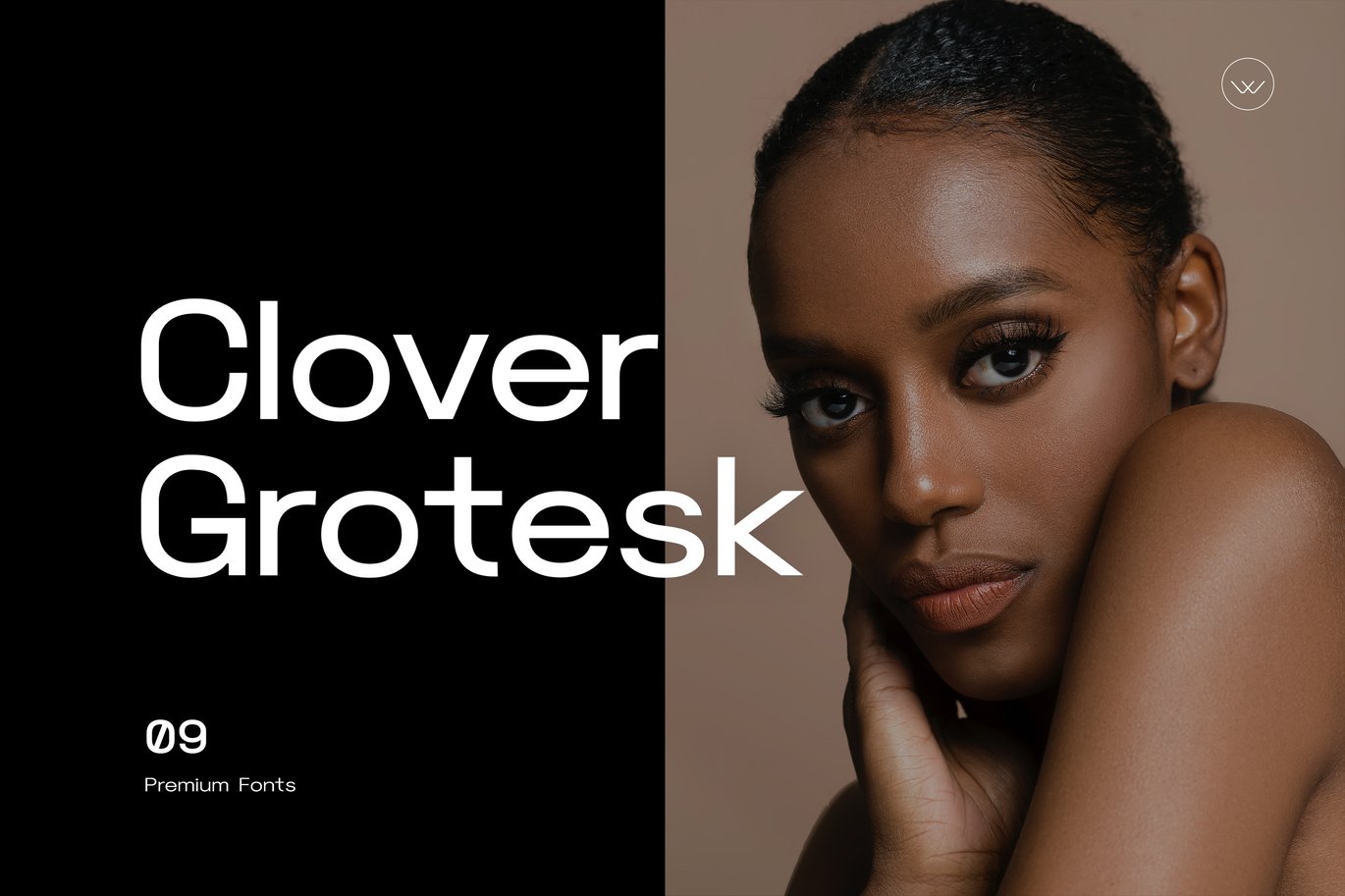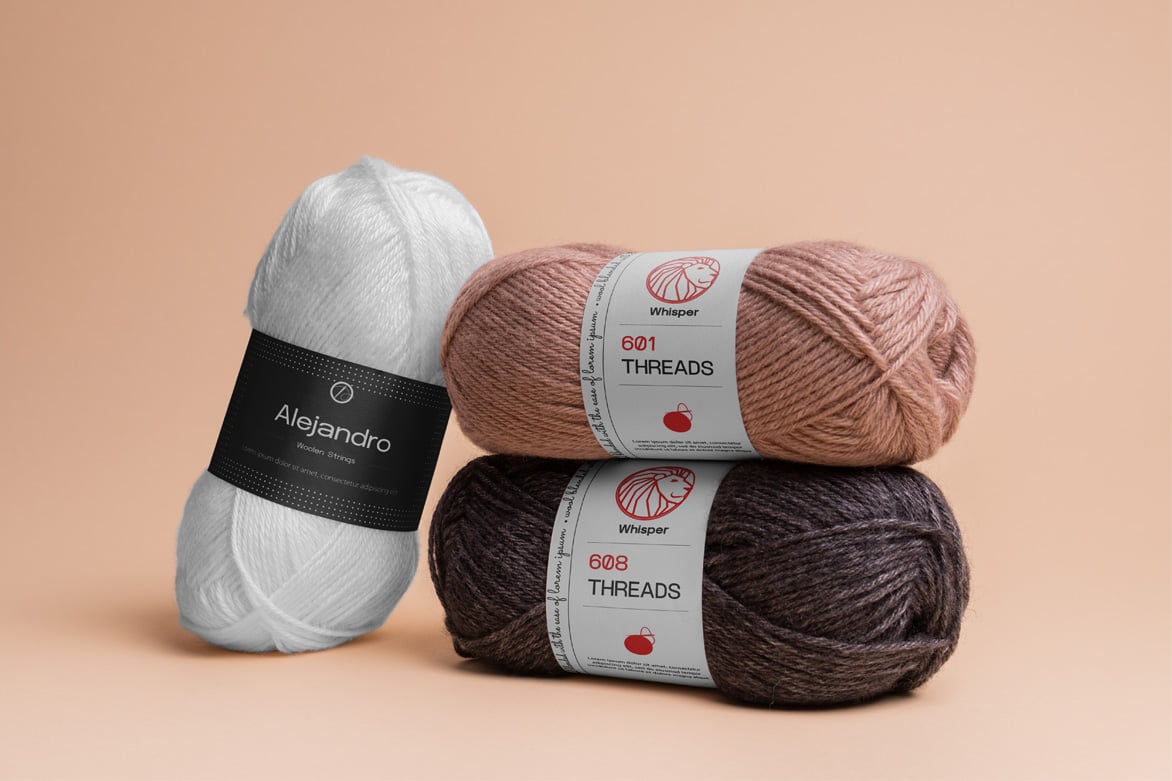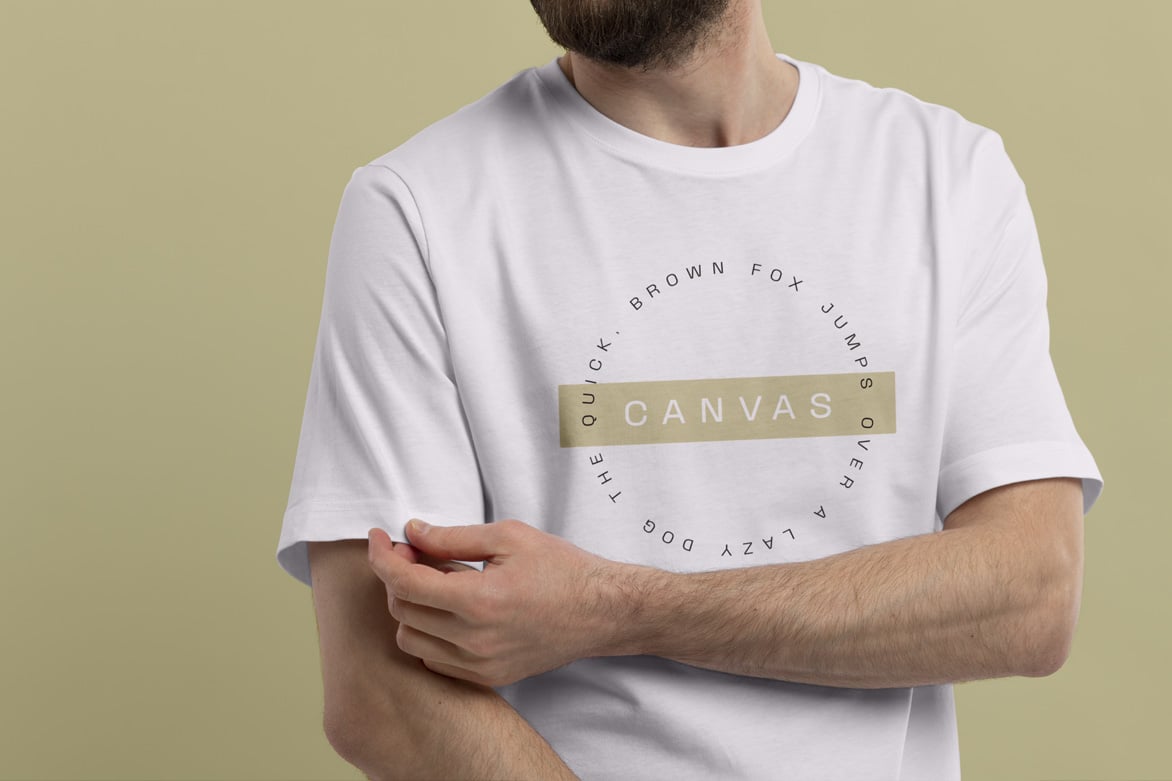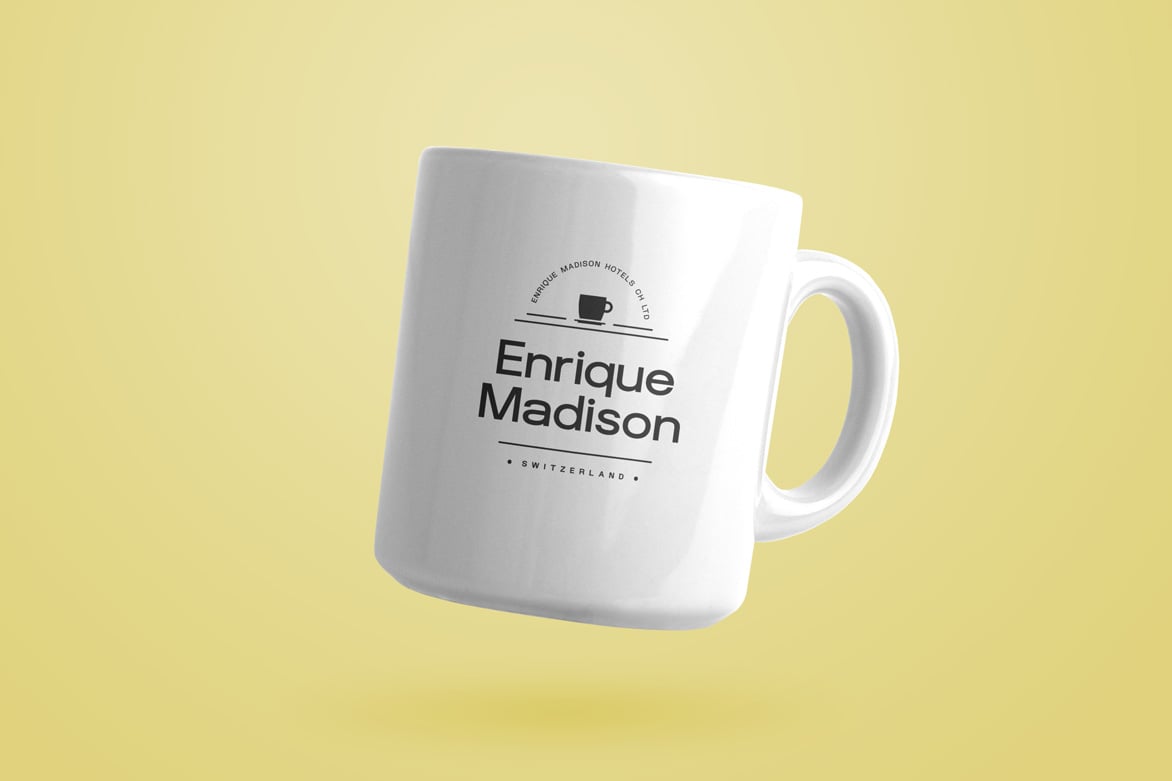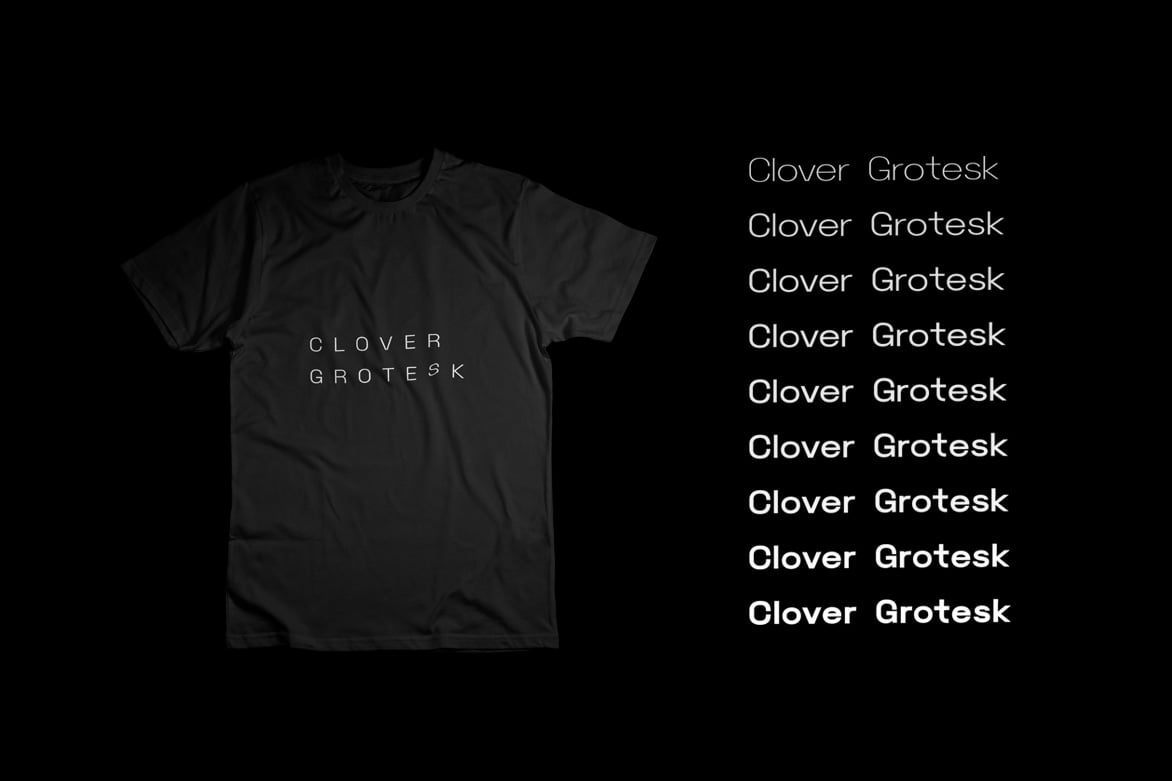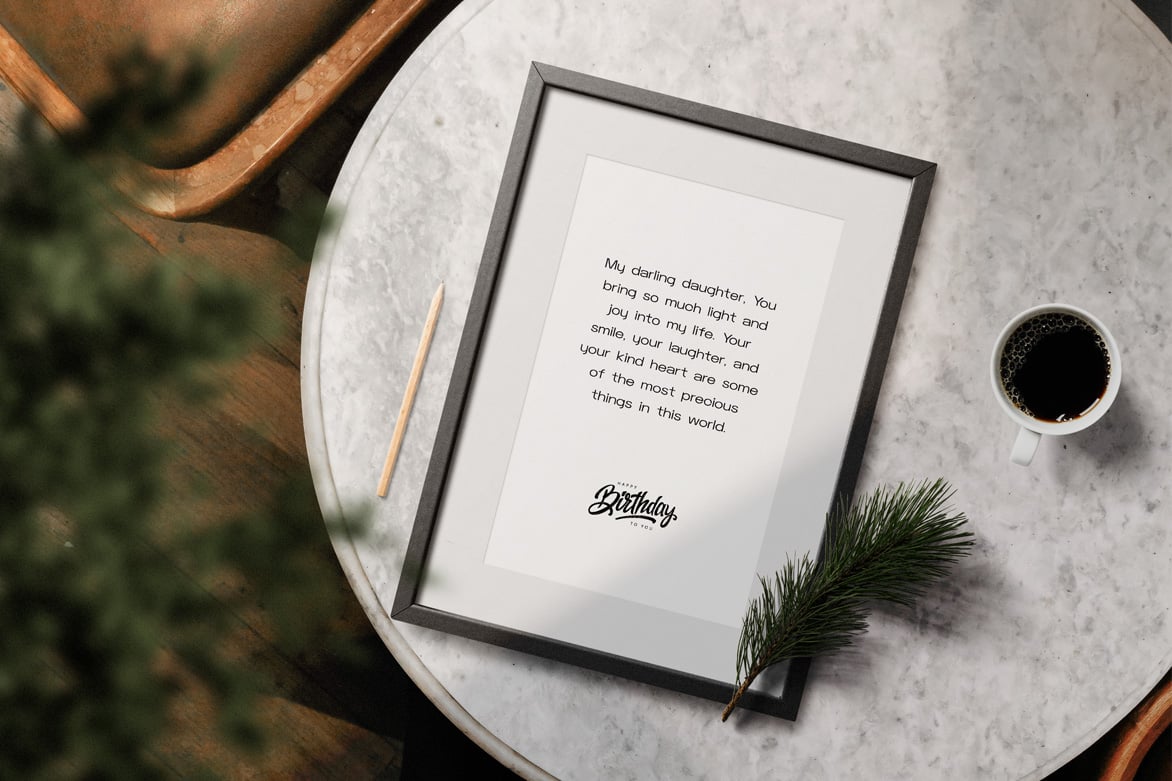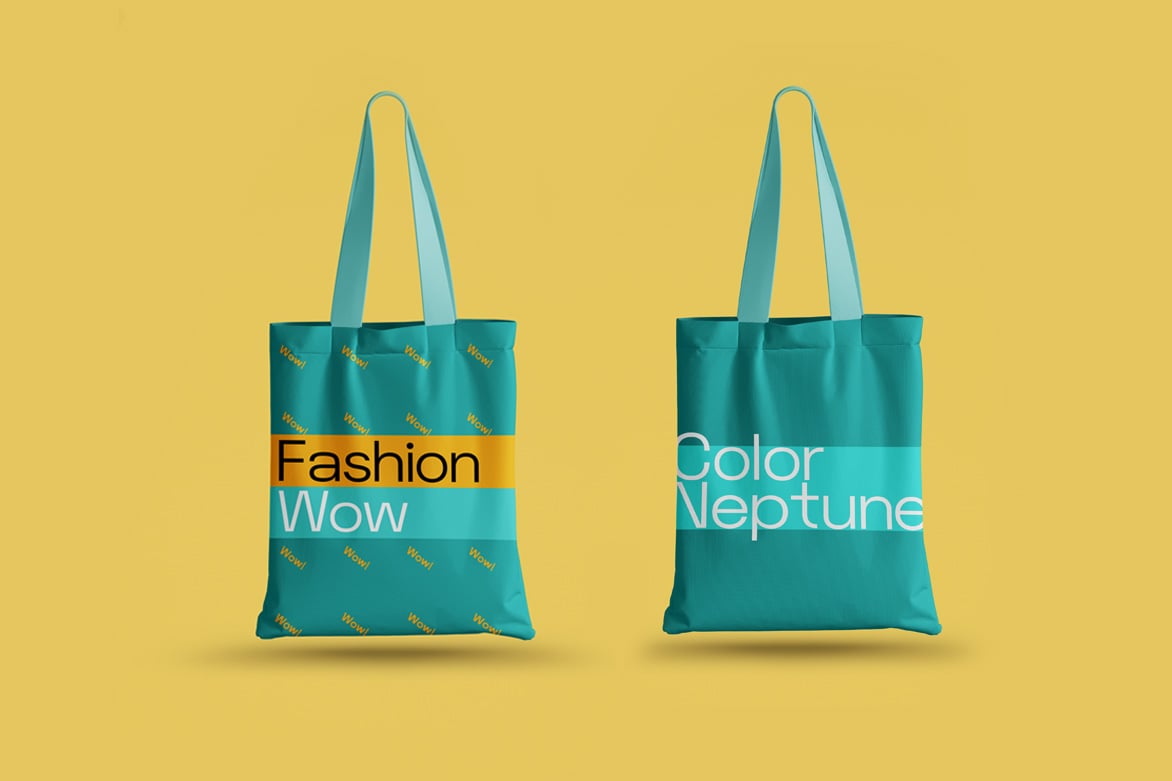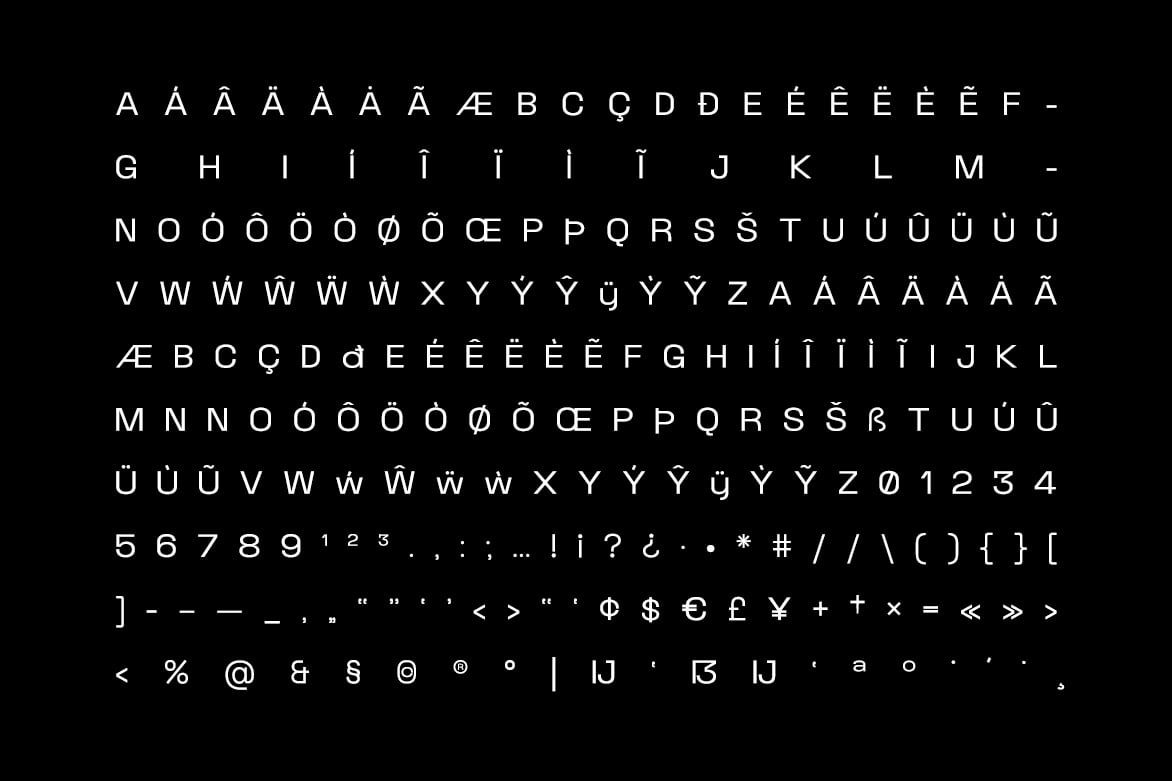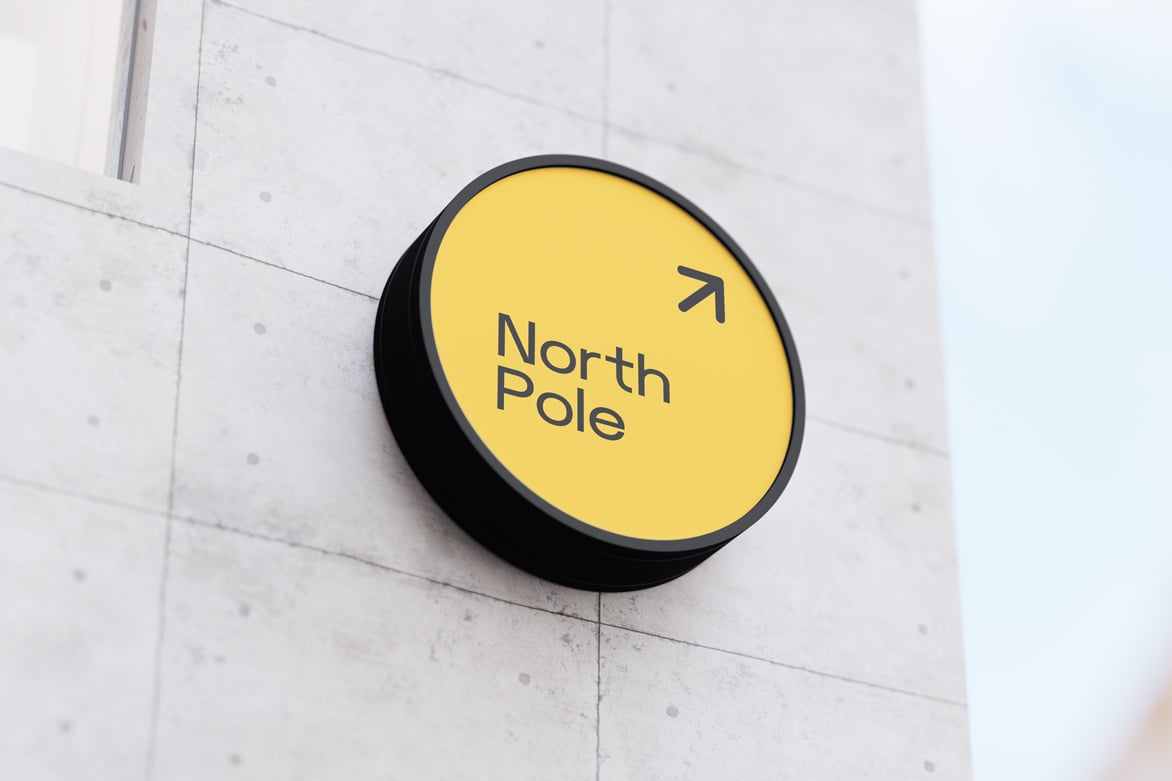
Clover Grotesk – Modern Typeface
Clover Grotesk
The Clover Grotesk typeface family includes 09 fonts in total, consisting of 09 weights: Thin, ExtraLight, Light, Regular, Medium, SemiBold, Bold, ExtraBold, and Black. Each weight comes in extended glyphs resulting in a versatile collection of fonts.
Clover Grotesk is versatile and suitable for a range of uses, including graphic design, text presentation, web and print design, and display. It is particularly well-suited for branding and logo design, marketing materials, banners, posters, signage, corporate identities, and editorial design.
- Upper / lowercase glyphs
- Slashed Zero
- Extended Letters